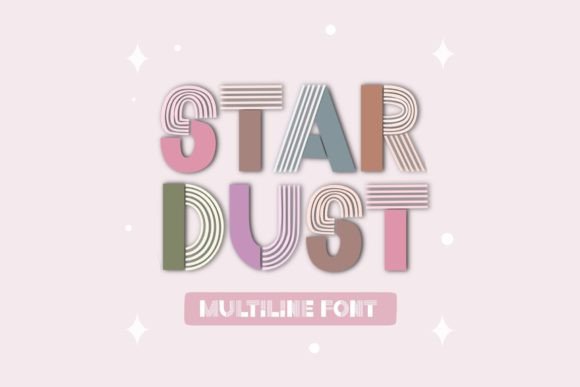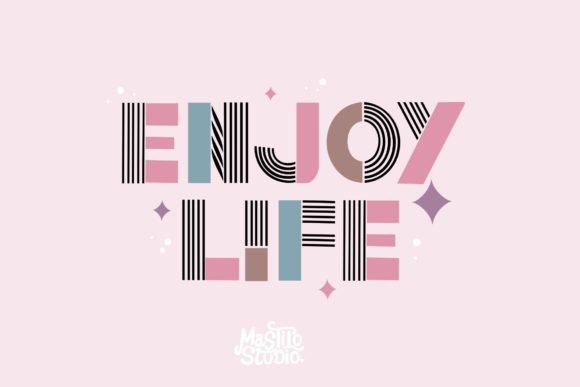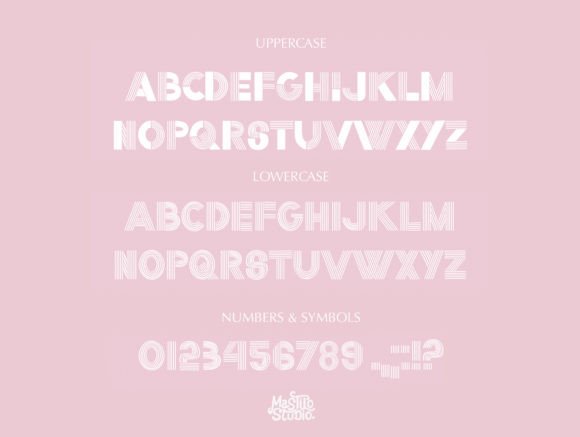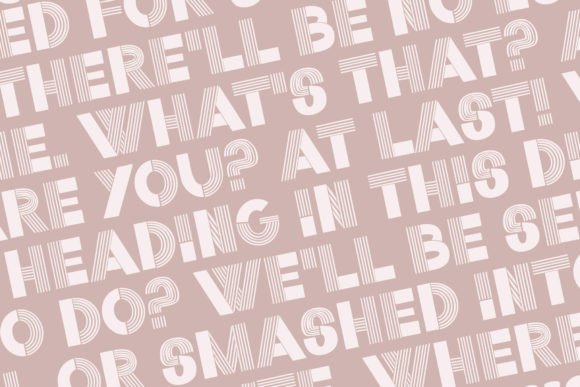
Stardust Font: Groovy Multiline Display Font for Cricut & Retro Designs
About the Stardust Font
Meet Stardust Font, a stunning font that brings a touch of elegance and professionalism to any design. Introducing STARDUST, a multiline groovy hand-drawn display font. A versatile font, with possibilities for use for all your projects. With the possibility to change the Uppercase strokes to different colors, it makes a great craft font for all your projects.
Stardust Font Usage Examples
Stardust Font Example